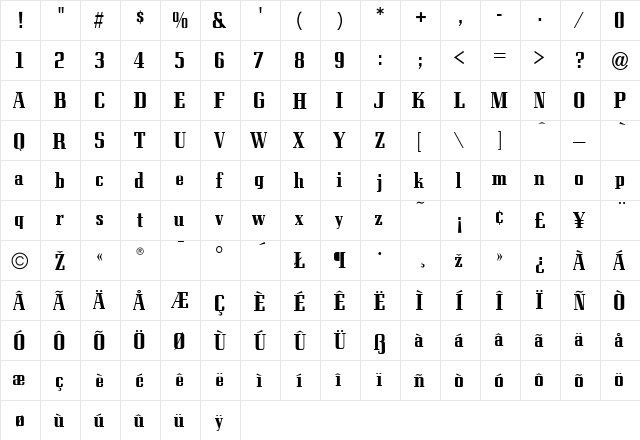
EdenBold Regular
Design Context for EdenBold Typeface
EdenBold offers clean, dependable letterforms without strong stylistic allegiance, making it a practical choice for designers who need flexibility. The heavy weight commands attention and anchors typographic hierarchies.